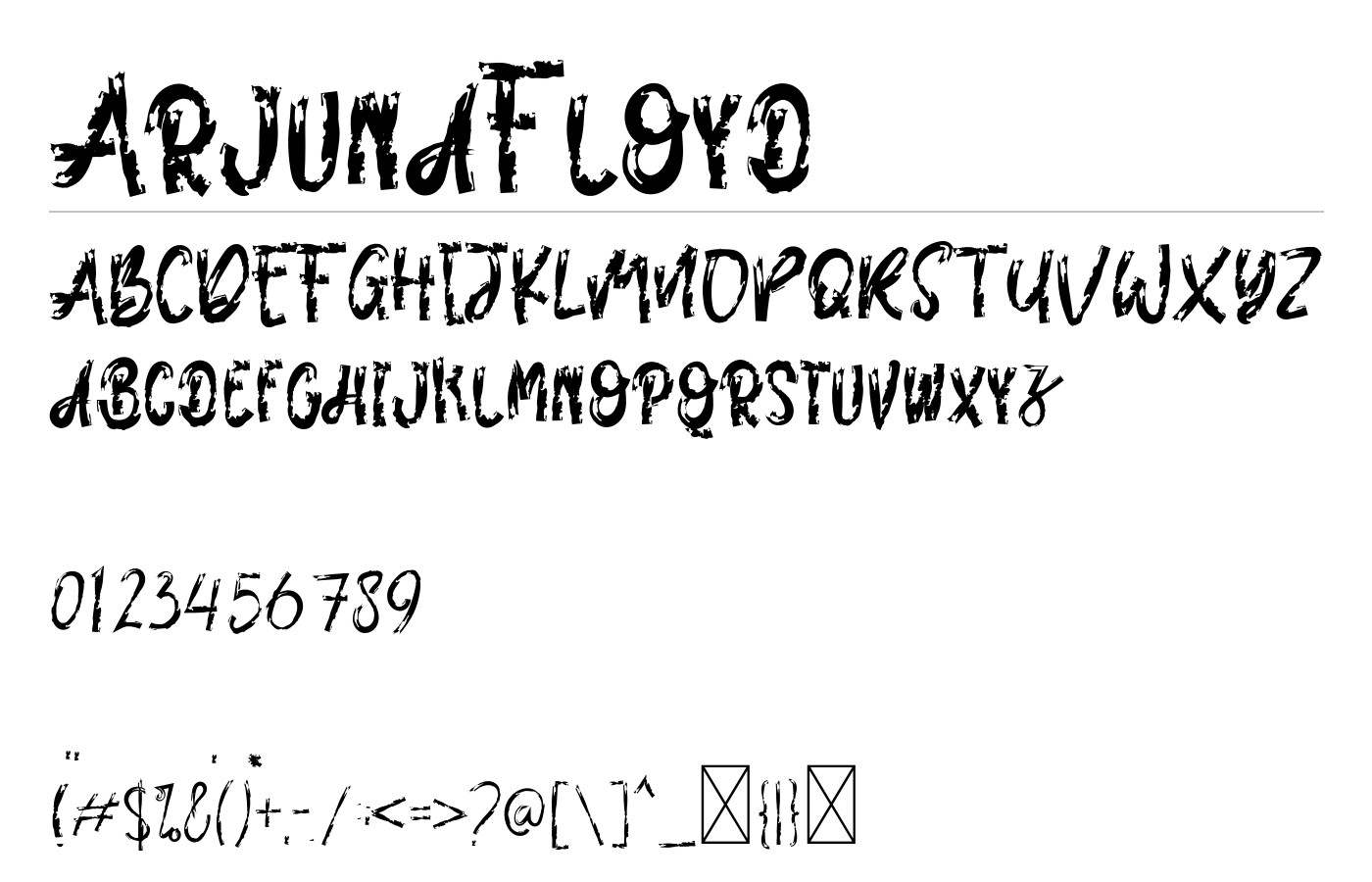
ArjunaFloyd is a bold, distressed display font with a hand-painted, brushstroke style that creates a rugged, artistic vibe. Its irregular edges and textured appearance give it a dynamic, edgy feel perfect for creative projects seeking a strong, expressive personality. This font works best for eye-catching headlines, posters, and branding that aim to convey energy and individuality.
ArjunaFloyd Font
About ArjunaFloyd Font